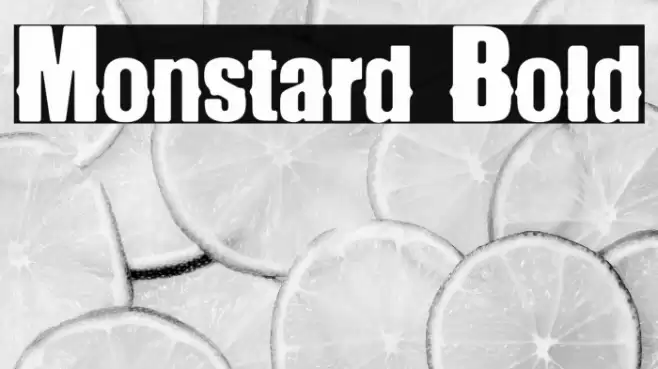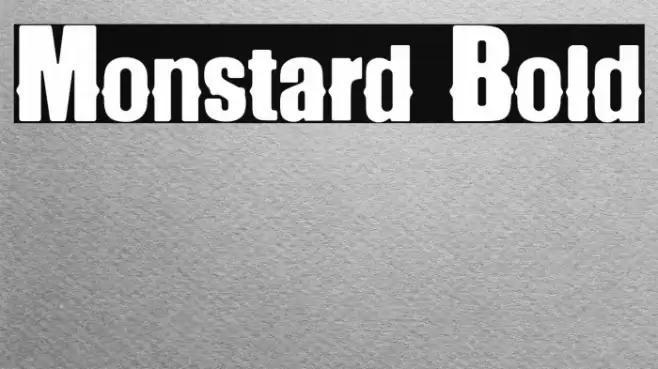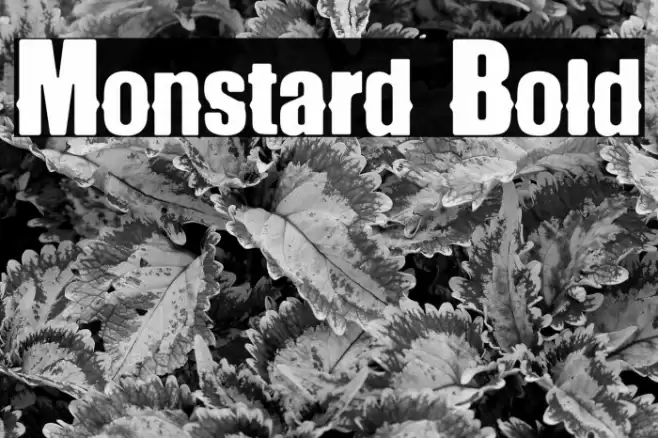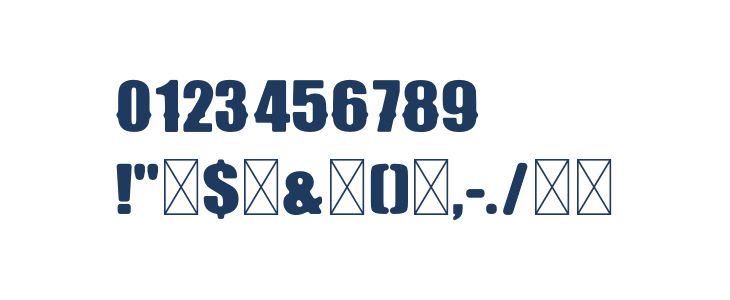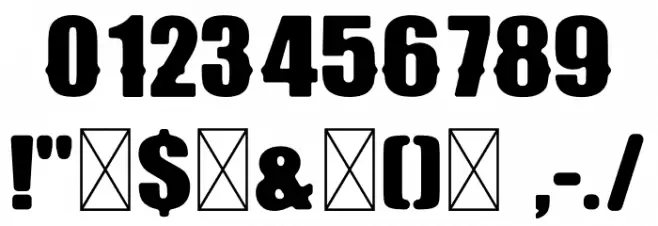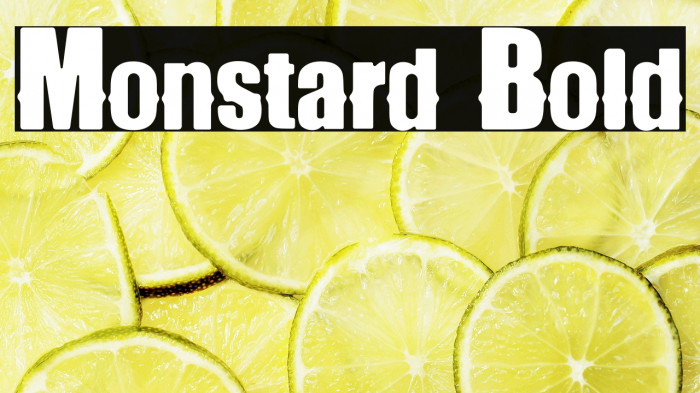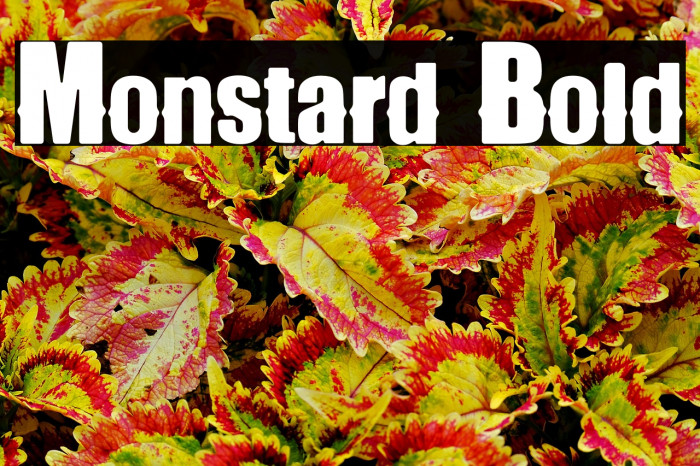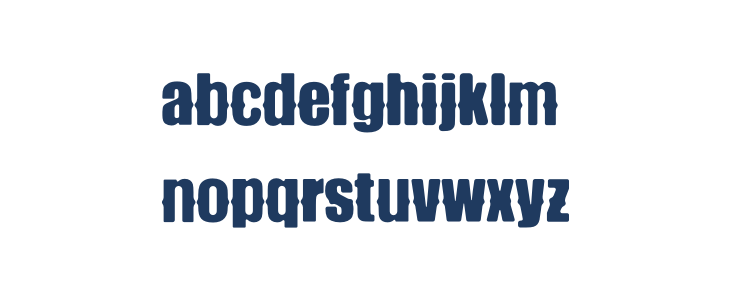
Monstard Bold Font
Monstard Bold Description
This font features a bold, impactful design with thick, uniform strokes that create a strong presence. The characters are wide and have a slightly condensed appearance, giving them a robust and sturdy look. The uppercase and lowercase letters maintain a consistent style, with rounded edges and minimal contrast in stroke thickness. The numbers and special characters follow the same bold and solid design, ensuring uniformity across all glyphs. This font is ideal for making a statement, with its heavy weight and clear legibility.
A bold, impactful font with thick, uniform strokes and a slightly condensed appearance from Uncategorized fonts.
- Proposed Projects: Ideal for headlines, posters, branding, and any project requiring a strong visual impact.